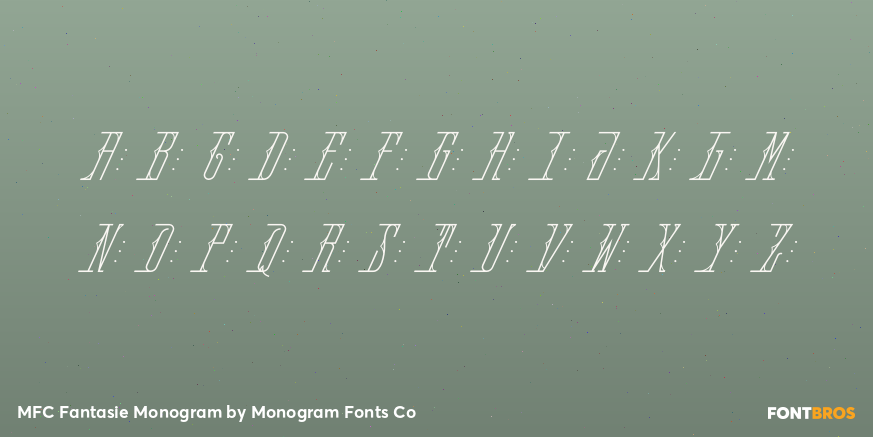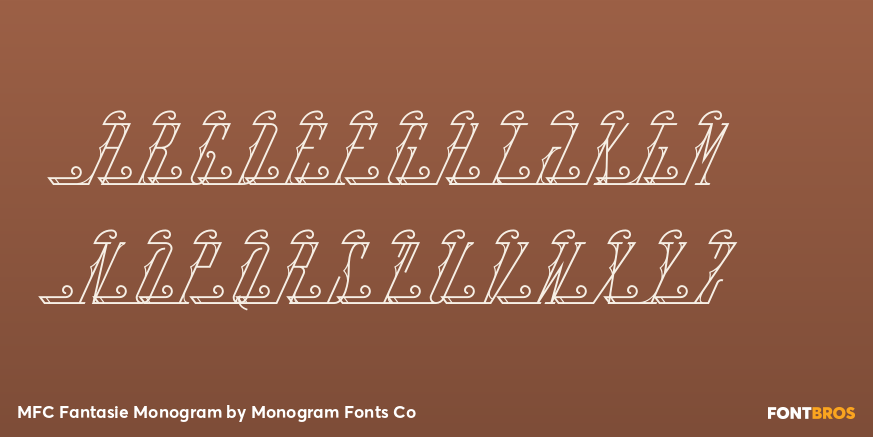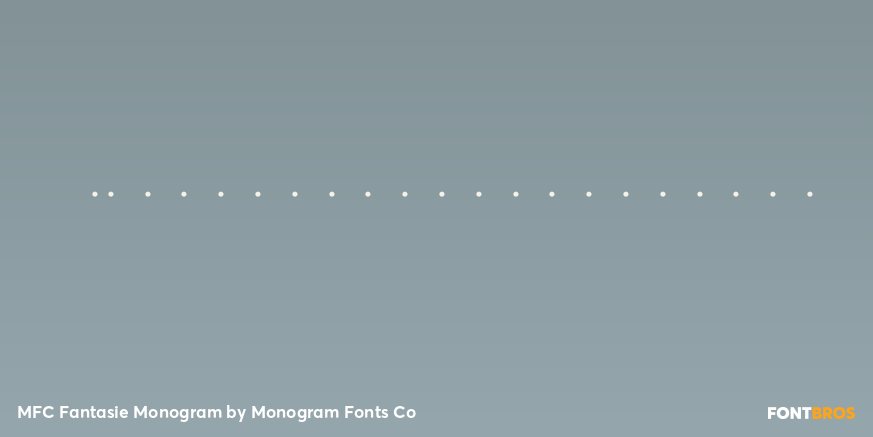
MFC Fantasie Monogram
Font Family by Monogram Fonts Co
The inspiration source for Fantasie Monogram is another hand-drawn design from a vintage embroidery publication which relies on rigid geometric letterforms on a dynamic slant stepping downwards. This monogram, which evokes visions of it embossed or printed on antique cookie tins, was originally intended to adorn handkerchiefs, but the possibilities of its use are up to your imagination. This is one of many monogram designs from the early 1900's which fall into a two letter format that is either adorned or interwoven decorative elements.